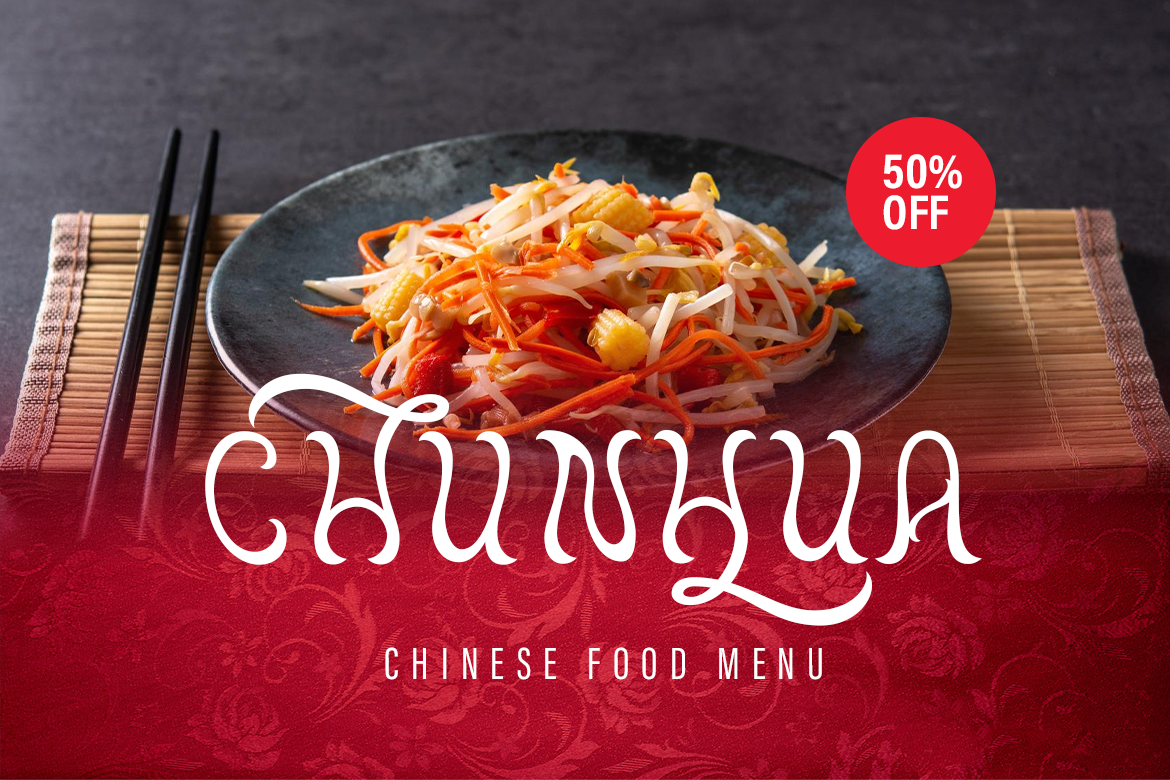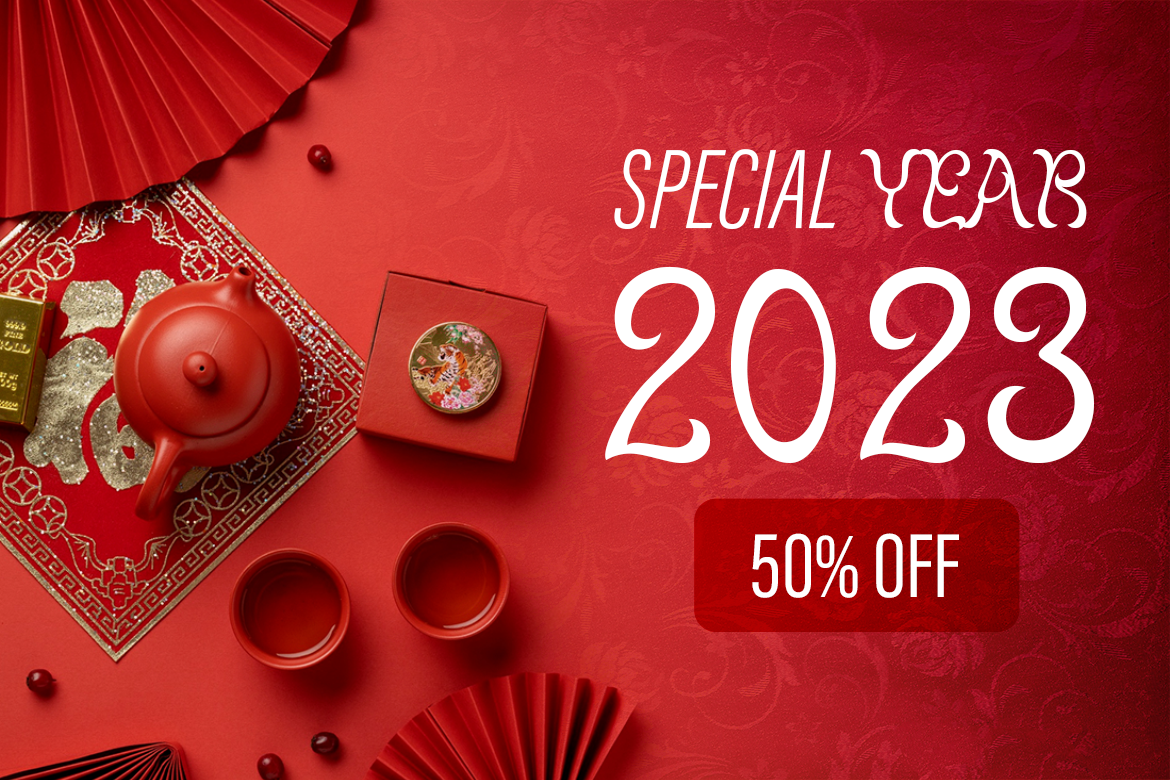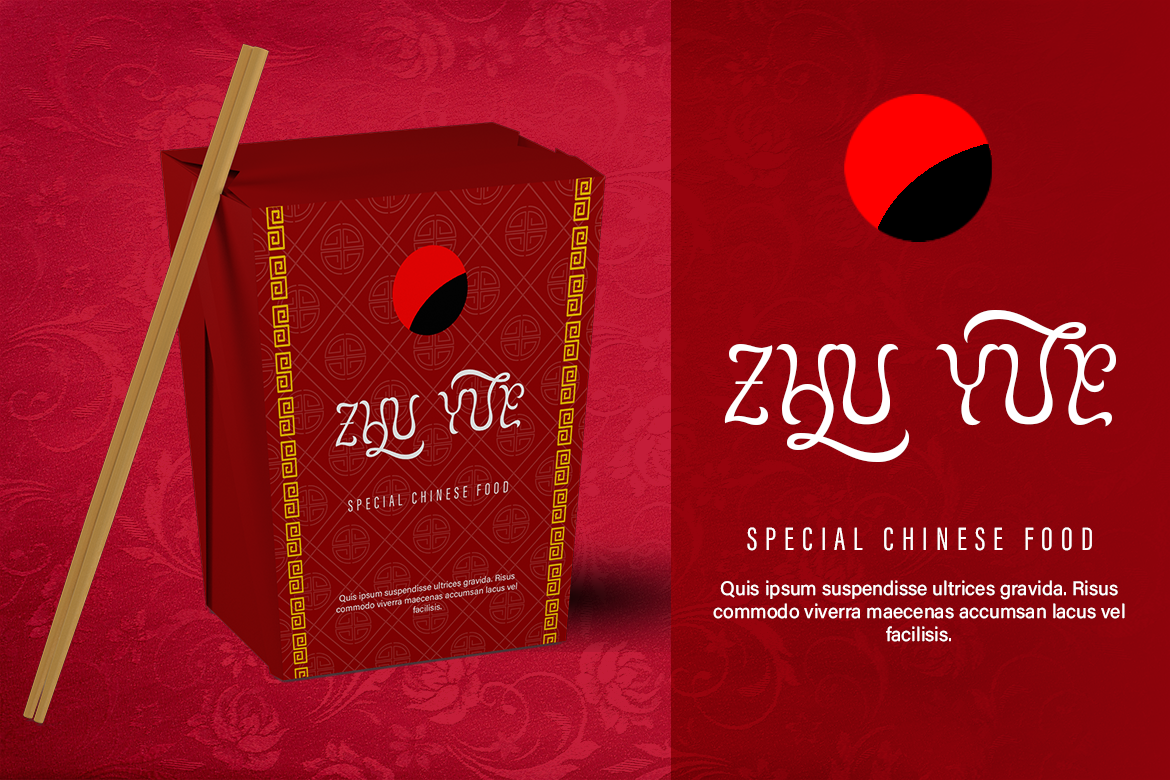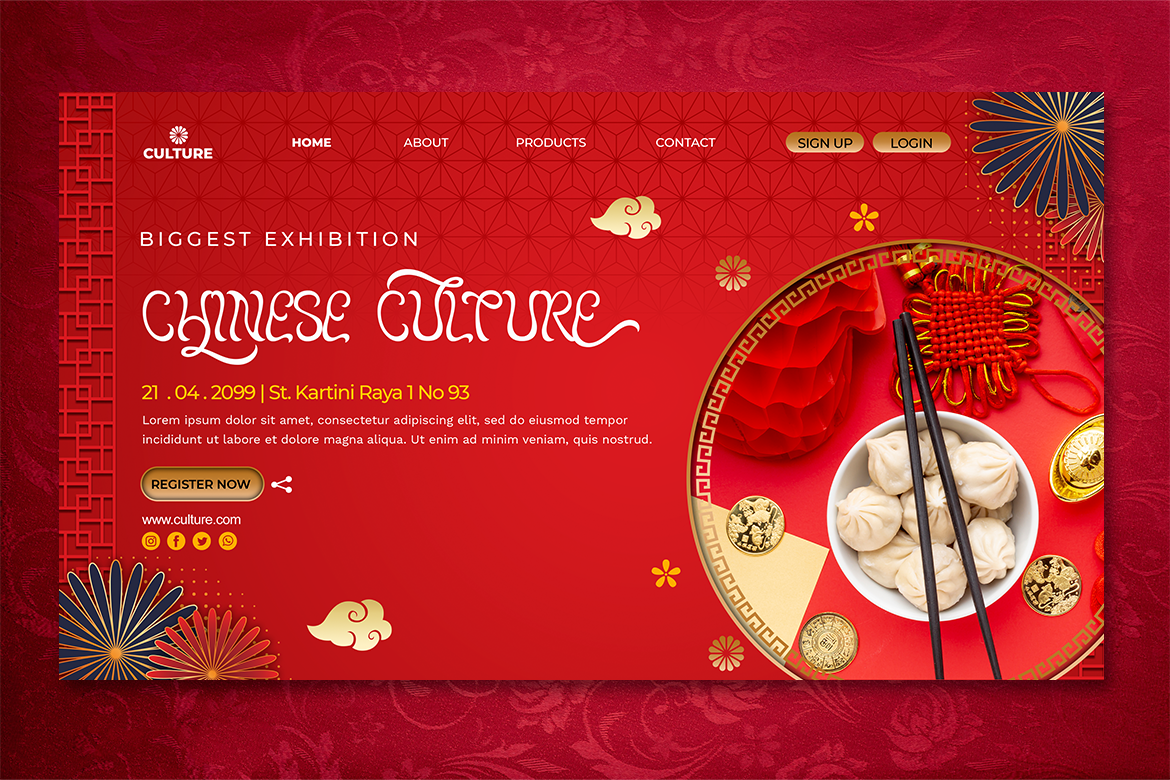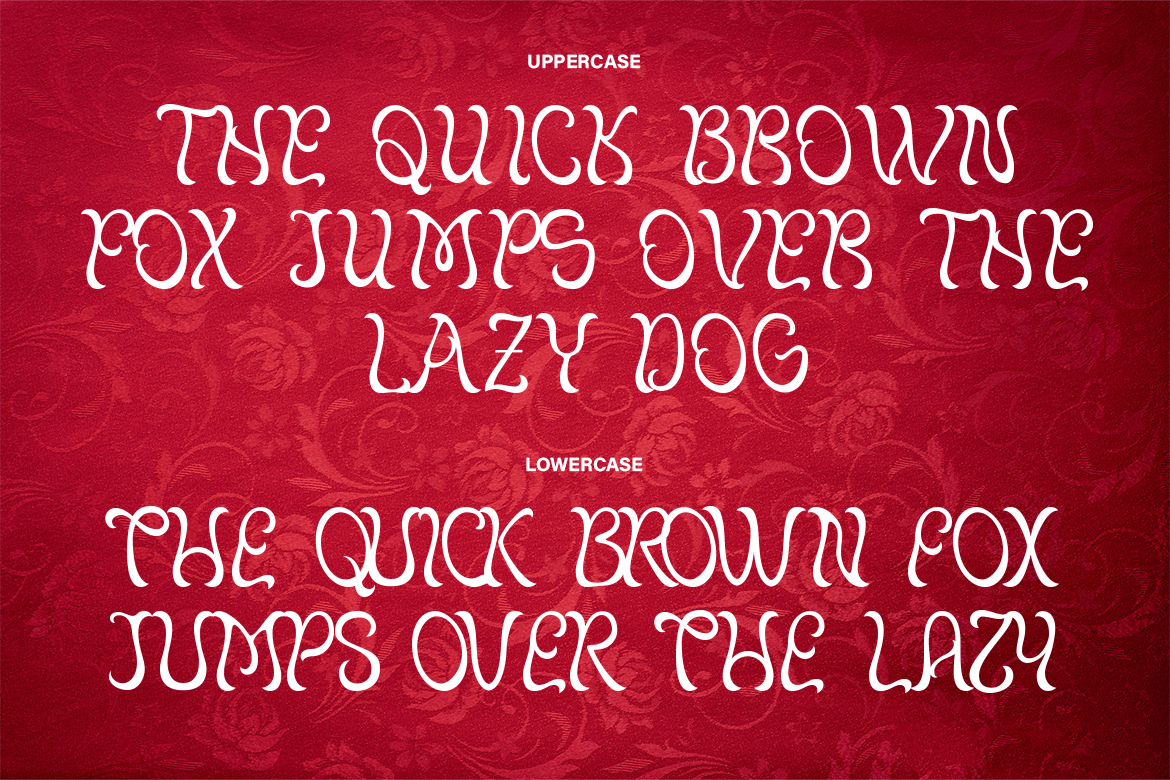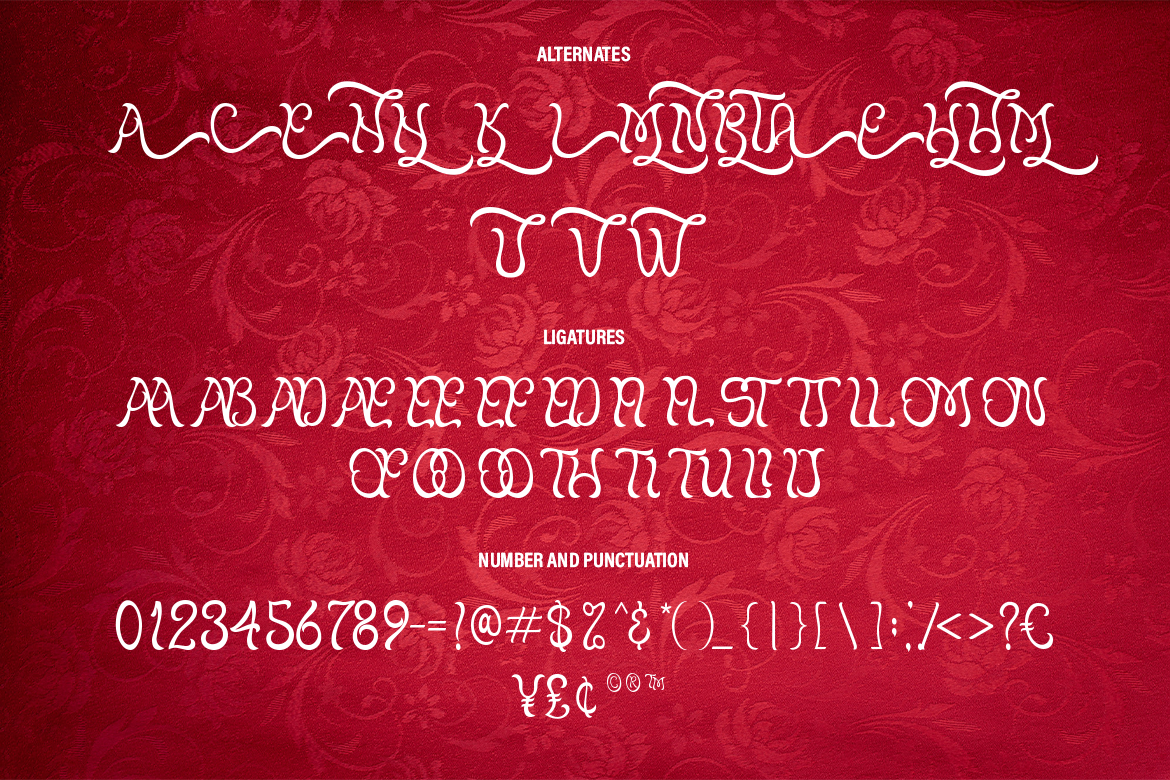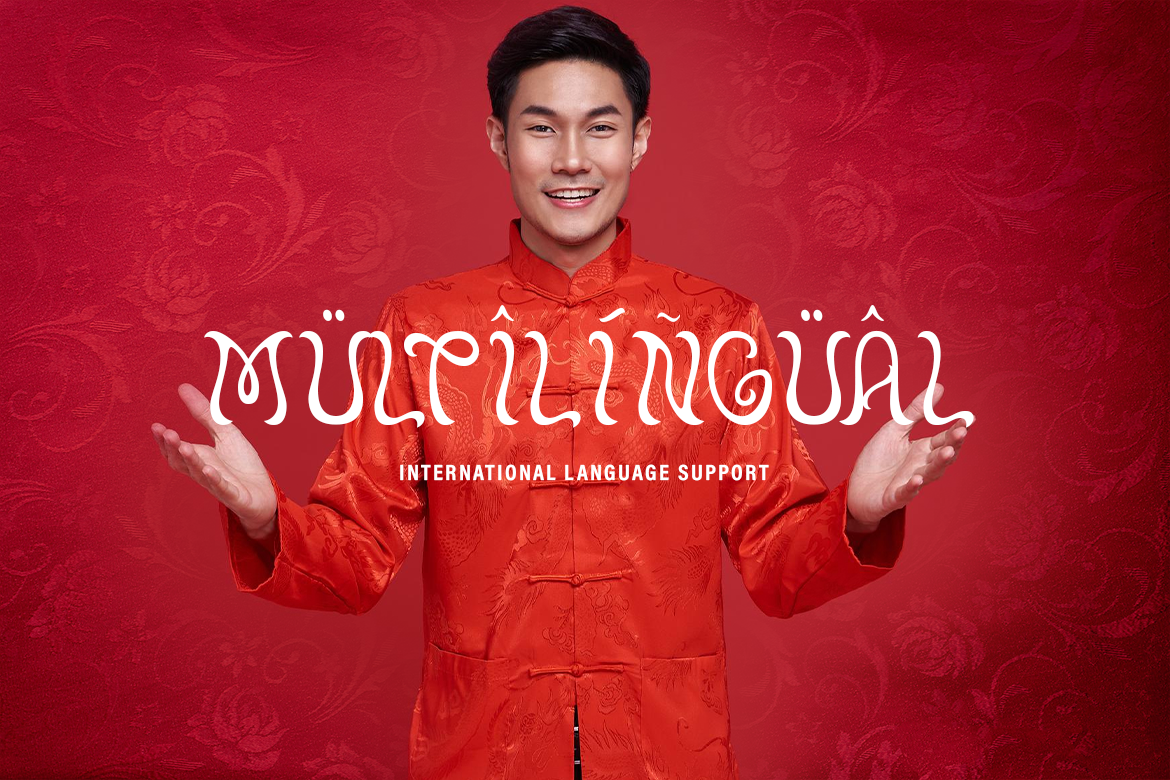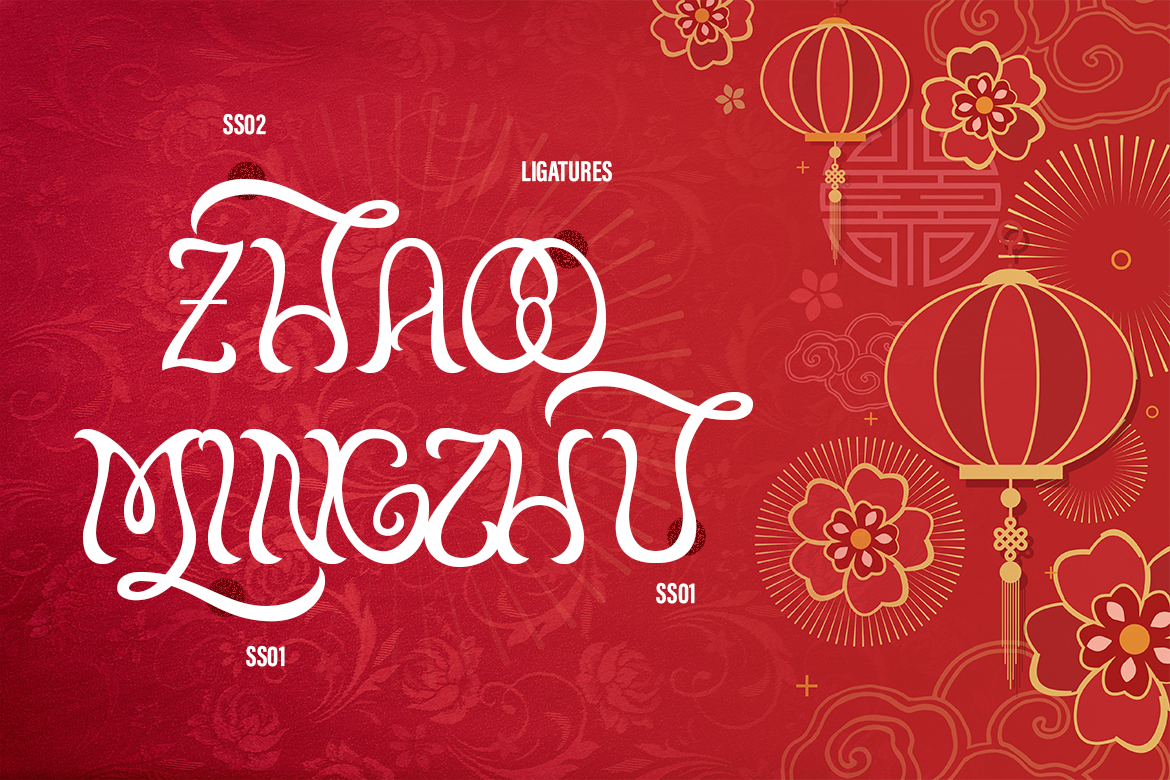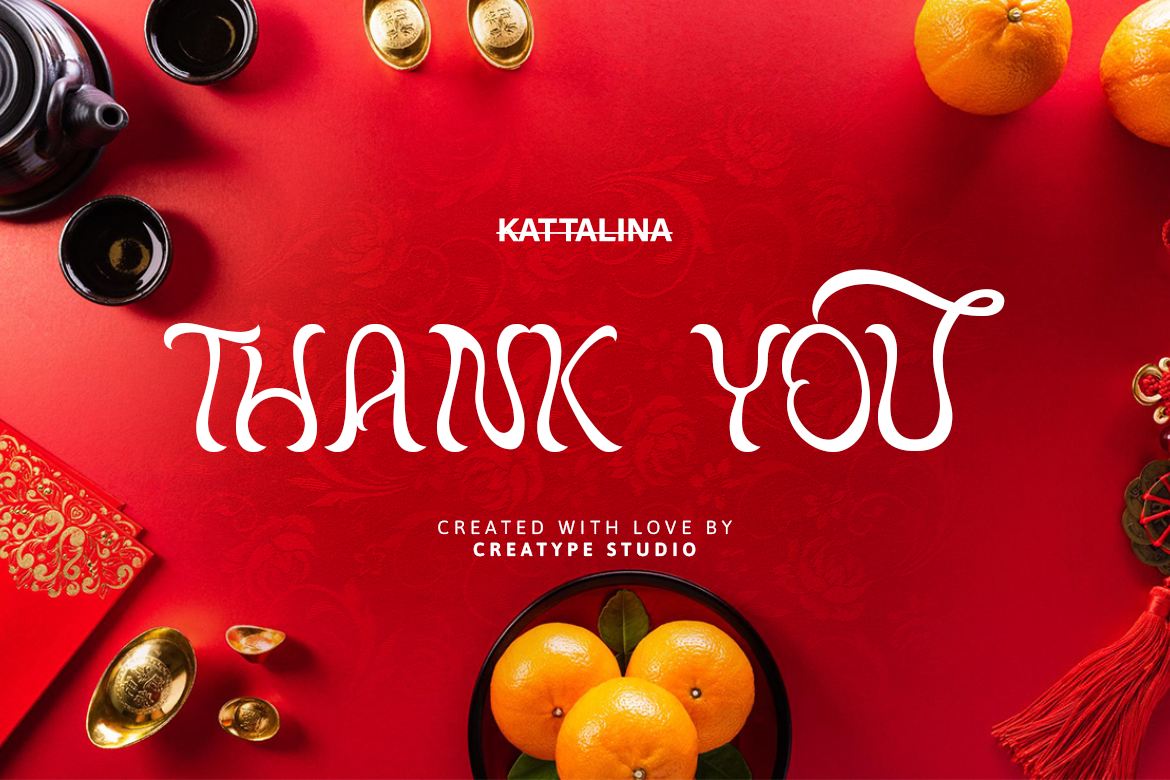
Kattalina Display Serif
Kattalina is a unique typeface that has a strong yet pretty character. Kattalina is perfect for making your design project more noticeable.
Kattalina is perfect for branding projects, logo, wedding designs, social media posts, advertisements, product packaging, product designs, label, photography, watermark, invitation, stationery and any projects that need handwriting taste.